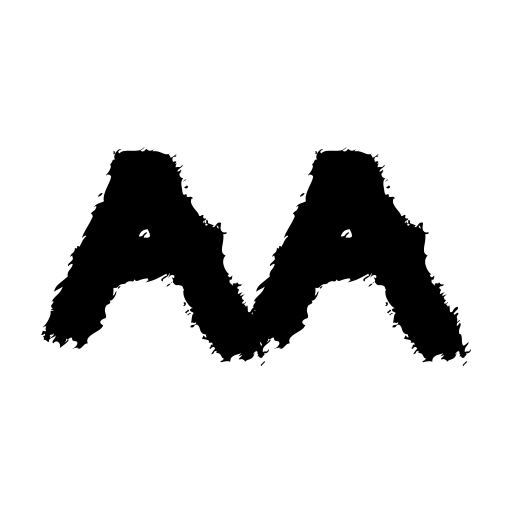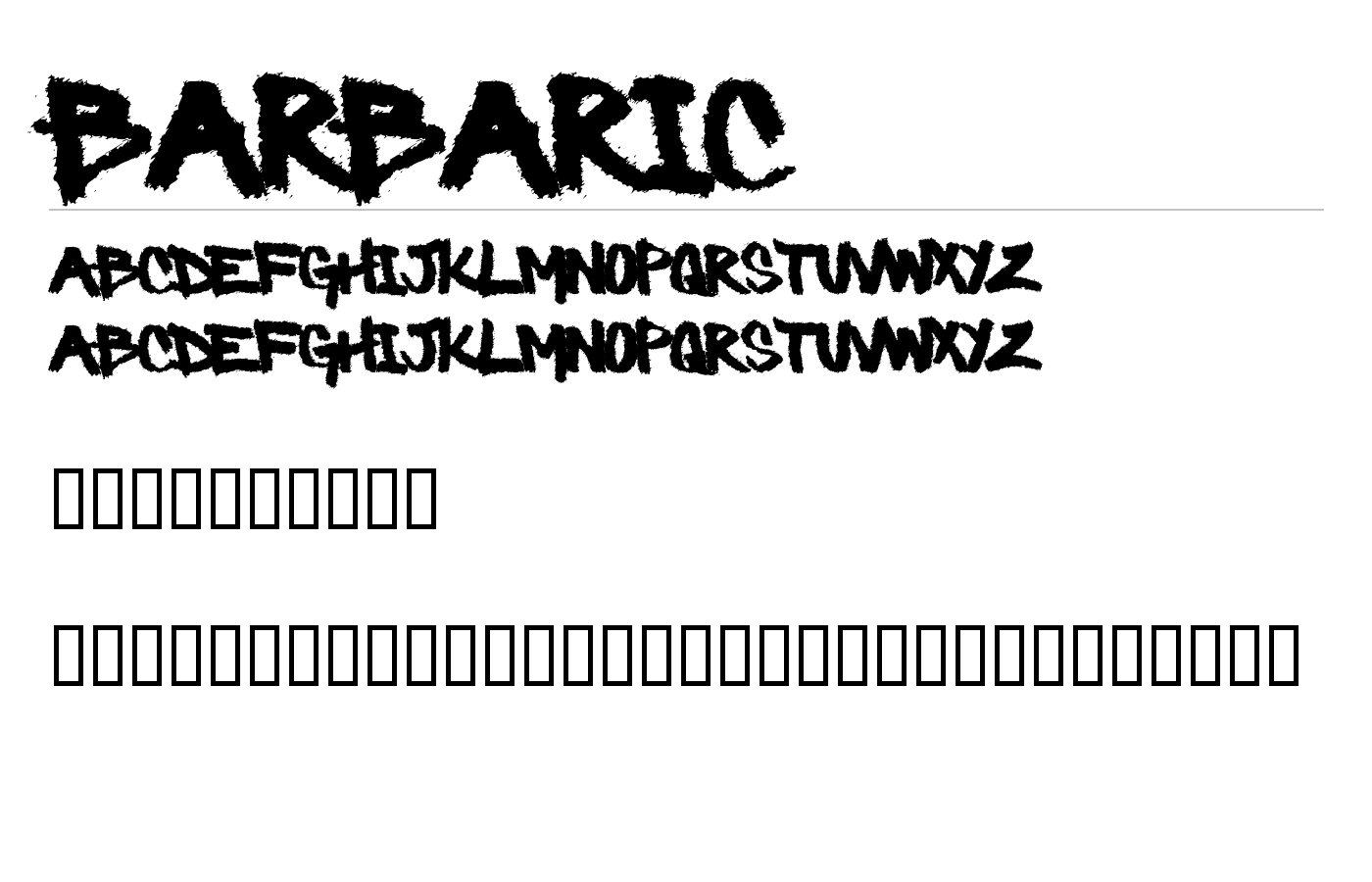
Barbaric Font is a bold, rough-edged display typeface with a hand-drawn, brush-like style that exudes a raw, energetic vibe. Its irregular strokes and jagged shapes make it perfect for designs that need a rebellious, gritty, or edgy feel, ideal for posters, album covers, and branding that seeks to stand out with an urban or underground mood. This font works best in large sizes where its distinctive texture can shine and grab attention.
Barbaric Font
About Barbaric Font
| Font family | Barbaric Font |
| Designer | Chris Vile |